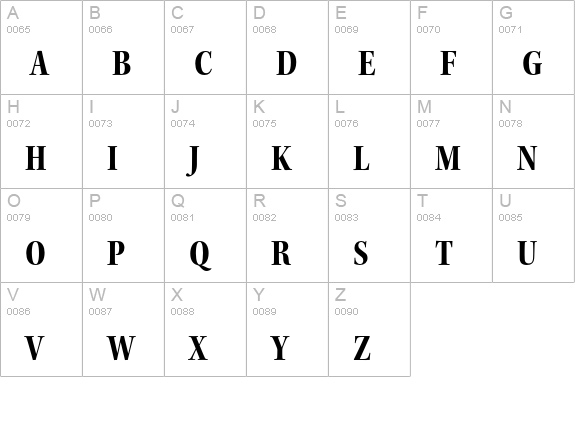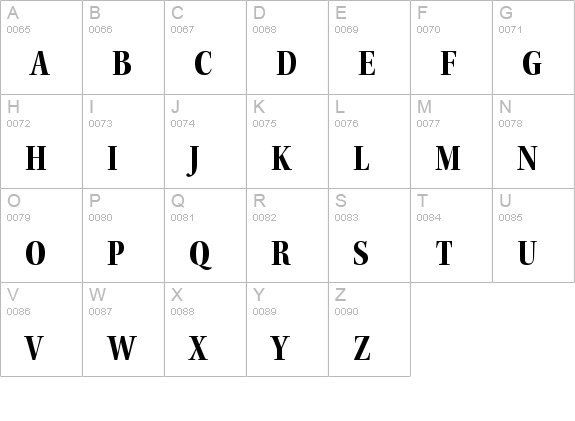
Kepler Std Bold Condensed Subhead Font Details
Kepler Std Bold Condensed Subhead is a strong, high-contrast, condensed-width variant in the Kepler typeface family \xE2\x80\x94 well suited to headlines, attention-grabbing titles, and strong calls-to-action.
Kepler Std Bold Condensed Subhead font is a striking and versatile typeface that is sure to make a bold statement in any design project. With its condensed and bold design, this font exudes confidence and strength, making it perfect for headlines, subheadings, and any other text that needs to grab attention. The sleek and modern aesthetic of Kepler Std Bold Condensed Subhead font adds a touch of sophistication to any design. Its clean lines and well-defined letterforms make it highly readable even at smaller sizes, ensuring that your message is delivered with clarity. But what sets Kepler Std Bold Condensed Subhead font apart is that it is not only visually appealing, but it is also free! Yes, you read that right. This fantastic font is freely available to download at FontsMarket.com. So, you can enhance your design projects without having to worry about breaking the bank. Whether you're working on a branding project, a website design, or creating eye-catching advertisements, Kepler Std Bold Condensed Subhead font is a reliable choice that will elevate your work to new heights. Its boldness and condensed form give it a commanding presence, making it ideal for headlines and titles that need to make a strong impact. So, why wait? Go ahead and download Kepler Std Bold Condensed Subhead font from FontsMarket.com today, and explore the endless possibilities that this remarkable font has to offer. Enhance your designs, captivate your audience, and make a lasting impression with this free and exceptional typeface.